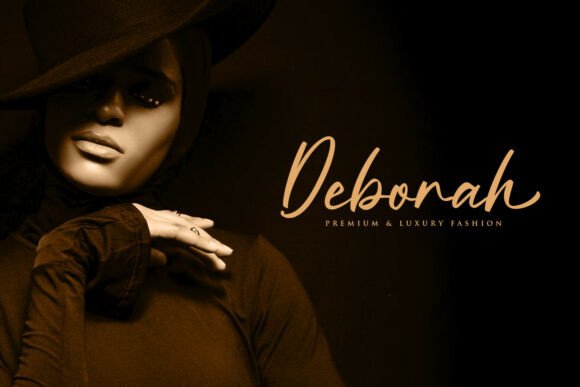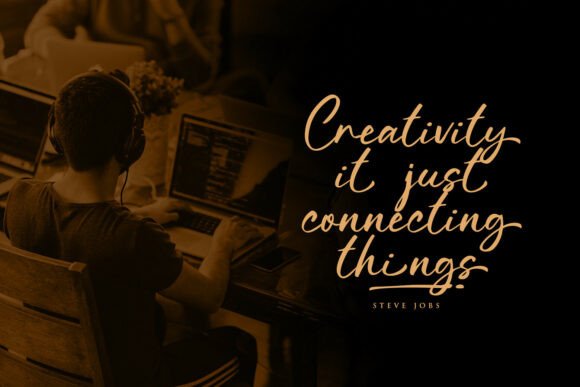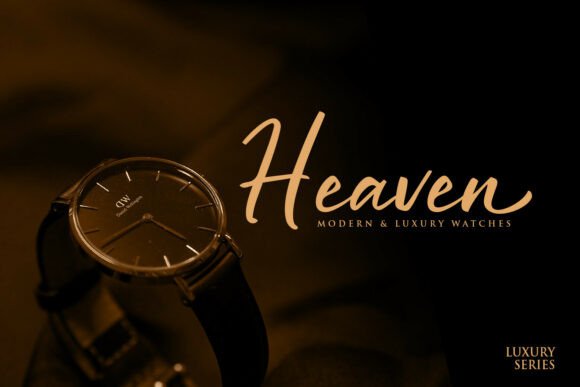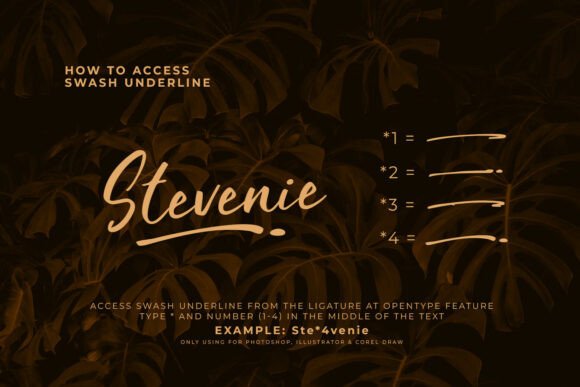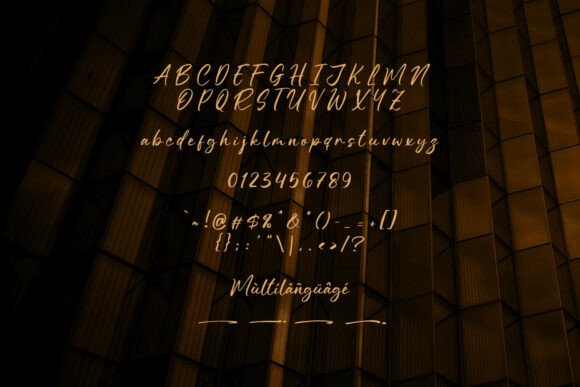
The Designer’s Delight: Unlocking the Potential of Alterday Font
I’ll never forget the time I was working on a branding project for a trendy new coffee shop. My client wanted a font that felt personal, yet sophisticated. I spent hours scouring the internet for the perfect match, but nothing seemed quite right. That was until I stumbled upon Alterday Font. Its elegant, handwritten style immediately caught my eye, and I knew I had found the one. In this article, I’ll share my experience with Alterday, its features, and how to make the most of this beautiful font.
An Honest Review of Alterday Font
• ✨ Effortless elegance: Alterday’s monoline strokes and slightly slanted letterforms give it a refined, yet casual look that’s perfect for a wide range of design projects.
• ✅ Versatility: This font works beautifully across various creative projects, including branding, blog headers, social media graphics, quotes, invitations, product packaging, and minimalist logos.
• 💡 Legibility: Alterday is designed for legibility, making it easy to read and understand, even at smaller font sizes.
• 🌈 Contemporary feel: The font’s sleek, modern style ensures it will fit right in with your contemporary designs.
While Alterday is an excellent font, there are a few things to keep in mind:
• 🤔 Limited use in formal contexts: Due to its casual, handwritten nature, Alterday might not be the best fit for very formal or traditional designs.
• ⚠️ Glyph limitations: As with any font, there may be limitations to the number of glyphs available, which could impact its use in certain languages or design applications.
A Practical Guide to Using Alterday Font
The Backstory of Alterday Font
Alterday was designed with the goal of creating a modern, handwritten script font that would bring a personal touch to any design. The designer aimed to craft a font that was both elegant and approachable, with a clean, flowing style that would work beautifully across a wide range of creative projects.
Q: What type of designs is Alterday best suited for?
A: Alterday is versatile and works well in various design contexts, including branding, blog headers, social media graphics, quotes, invitations, product packaging, and minimalist logos.
Q: Is Alterday suitable for body text?
A: While Alterday is legible, its handwritten nature makes it more suitable for headings and titles. For body text, a serif or sans-serif font might be more readable.